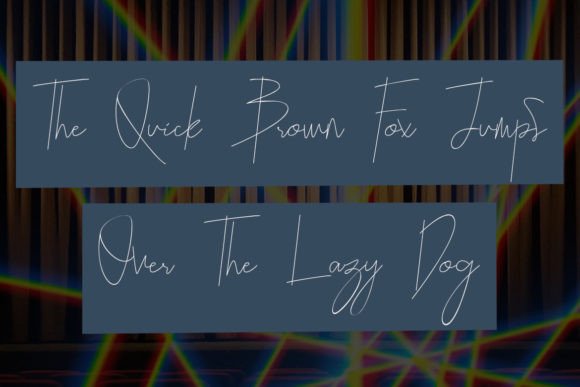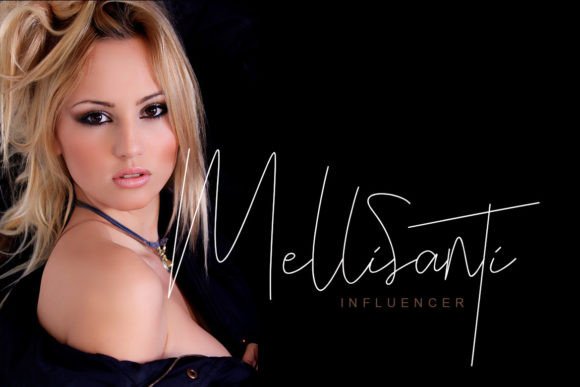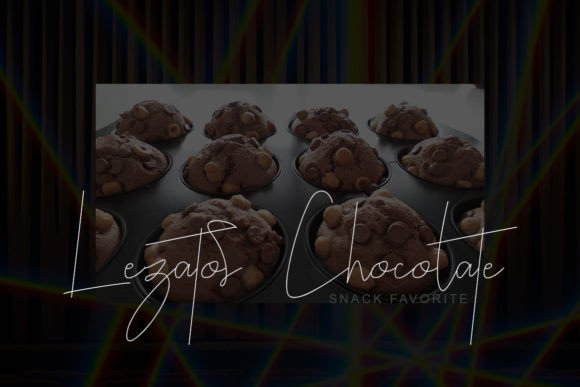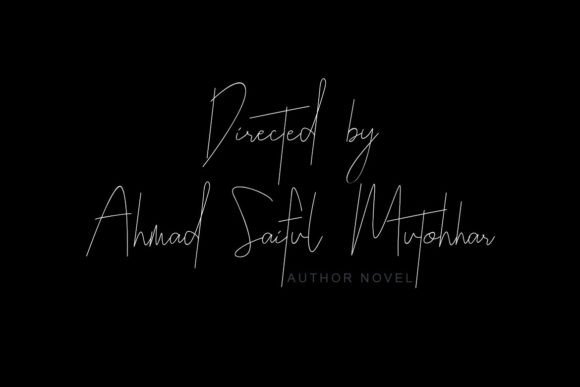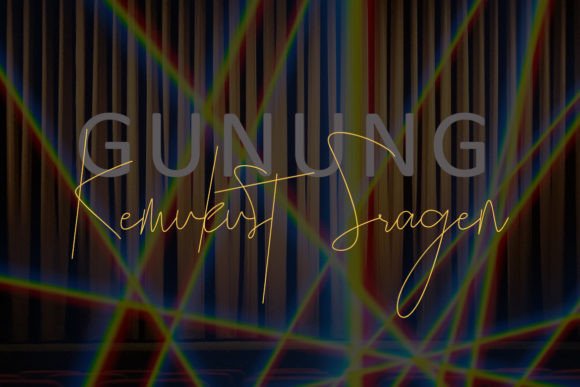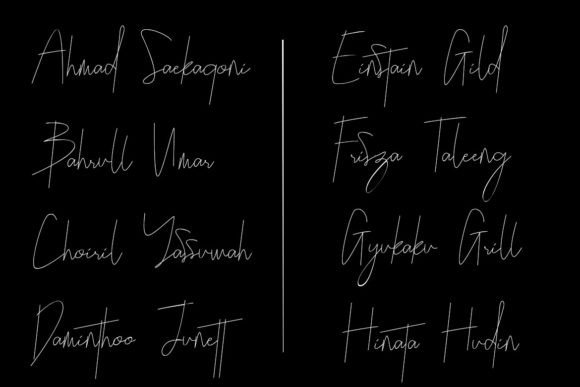
Bildvonest Font: Elevate Your Designs with Elegance and Sophistication
In the world of typography, a font can make or break a design. For designers and crafters seeking to add a touch of elegance and sophistication to their projects, Bildvonest Font is an exceptional choice. This stylish and delicate handwritten font is perfect for a variety of applications, from product packaging and branding projects to magazines, social media, and weddings.
What Makes Bildvonest Font Stand Out?
Bildvonest Font boasts a unique blend of classic calligraphic influences and modern flair. Its delicate strokes and refined lines evoke a sense of luxury and refinement, making it ideal for designs that require a high level of sophistication. Whether you’re working on a branding project, creating wedding invitations, or developing a social media campaign, Bildvonest Font is sure to impress.
Key Features of Bildvonest Font
- Stylish and Delicate: Bildvonest Font features a beautiful, handwritten design that adds a touch of elegance to any project.
- Classy Calligraphic Influences: The font’s classic calligraphic roots give it a timeless feel that’s perfect for designs that require a sense of tradition and sophistication.
- Contemporary and Fresh: Despite its classic influences, Bildvonest Font feels modern and fresh, making it suitable for a wide range of applications.
- PUA Encoded: The font is PUA encoded, allowing easy access to all glyphs and swashes. This feature makes it simple to customize your designs and add unique touches.
Use Cases for Bildvonest Font
Bildvonest Font is incredibly versatile, making it suitable for a variety of design projects. Here are some of the most popular use cases:
- Product Packaging: Add a touch of elegance to your product packaging with Bildvonest Font. Its delicate design and classic influences make it perfect for luxury brands and high-end products.
- Branding Projects: Establish your brand’s identity with a sophisticated font that exudes refinement and luxury. Bildvonest Font is ideal for creating a cohesive brand image.
- Magazines and Publications: Use Bildvonest Font to add a touch of class to your magazine or publication. Its elegant design makes it perfect for headings, titles, and other display text.
- Social Media: Elevate your social media presence with Bildvonest Font. Its modern feel and classic influences make it suitable for a wide range of social media platforms.
- Weddings and Events: Create beautiful wedding invitations, programs, and other event materials with Bildvonest Font. Its delicate design and elegant feel make it perfect for special occasions.
Tips for Using Bildvonest Font
To get the most out of Bildvonest Font, here are some tips to keep in mind:
- Pair it with Other Fonts: Bildvonest Font pairs well with other fonts, especially those with a modern or serif design. Experiment with different combinations to find the perfect match for your project.
- Use it for Headings and Titles: Bildvonest Font is perfect for headings and titles, where its elegant design can shine. Use it to add a touch of sophistication to your text.
- Experiment with Swashes and Glyphs: With its PUA encoding, Bildvonest Font offers easy access to swashes and glyphs. Experiment with different combinations to add unique touches to your design.
Bildvonest Font is a stylish and delicate handwritten font that’s perfect for designers and crafters seeking to add a touch of elegance and sophistication to their projects. With its classic calligraphic influences, modern feel, and PUA encoding, Bildvonest Font is an exceptional choice for a wide range of applications. Whether you’re working on a branding project, creating wedding invitations, or developing a social media campaign, Bildvonest Font is sure to impress.